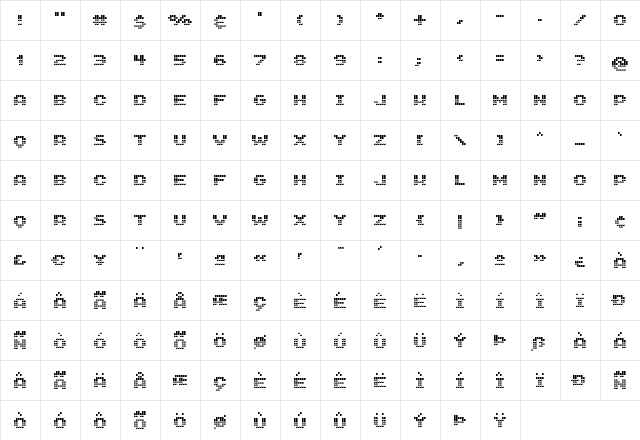
GenetrixSquareHollow Regular
Design Context for GenetrixSquareHollow Typeface
GenetrixSquareHollow takes a measured approach to typography — its balanced proportions and neutral character make it a reliable workhorse for both digital and print work.